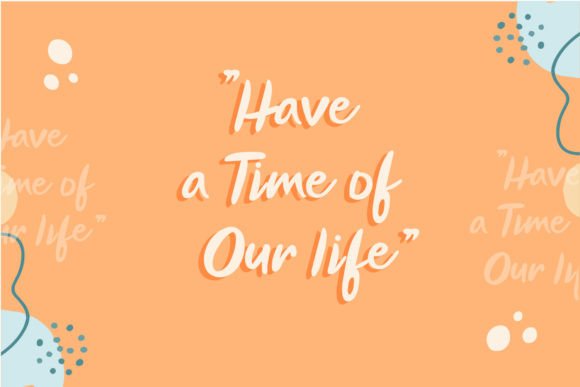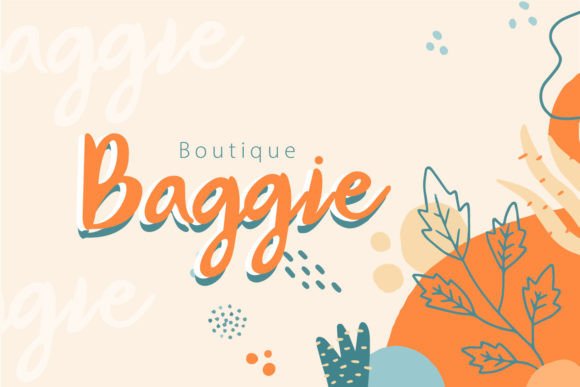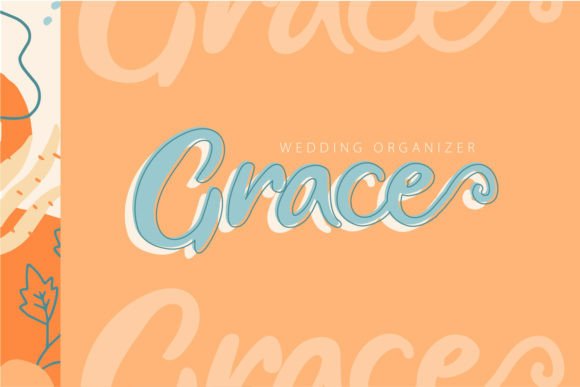
Introduction to Peach Salmon Font
Do you remember that moment when you stumble upon the perfect design element, and your creative project suddenly comes alive? For many designers, this moment is a result of finding the right font. If you’re on the hunt for a new design resource, you might want to consider the Peach Salmon Font. This fun and friendly display font is sure to add a touch of personality to your next project.
The Peach Salmon Font is more than just a pretty face – it’s a high-quality design asset that can elevate your creative work. With its incredibly distinct and timeless style, this font is perfect for designers looking to add a unique touch to their designs. Plus, with its transparent background, you can easily use it as a design element in any project, from social media graphics to print materials.
Key Features of Peach Salmon Font
- High-quality, elegant script font with a unique blend of peach and salmon hues, ideal for creative projects requiring a touch of sophistication.
- Transparent background, making it easy to layer over images or use as a design resource for various creative projects.
- Available in a range of sizes, from 12 to 72 points, to accommodate various design needs and applications.
- Designed to be highly legible at resolutions up to 300 DPI, ensuring crisp and clear text display in print and digital formats.
- Perfect for designers, artists, and creatives seeking a unique, high-quality font to elevate their design projects and add a touch of elegance.
Honest Review: Peach Salmon Font
I recently stumbled upon the Peach Salmon Font and I have to say, I was intrigued by its unique design. As a designer, I’m always on the lookout for high-quality design resources to enhance my creative projects.
What works well for me about this font is its versatility. It’s perfect for projects that require a touch of elegance and sophistication, but still want to maintain a playful vibe. The font is available for free download, which is a huge plus in my book. I appreciate the transparency of the creator in offering a high-quality font without any restrictions.
Here are some of the features that I love about the Peach Salmon Font:
- Unique and elegant design
- Perfect for creative projects that require a touch of sophistication
- High-quality design resource
One thing that I would like to see improved is the font’s compatibility with different backgrounds. Sometimes, the font can get lost against a transparent background, which can affect the overall design. ⚠️
Overall, I would give the Peach Salmon Font 4 out of 5 stars. It’s a great addition to any designer’s toolkit, and I would definitely recommend it for any creative project that requires a touch of elegance and sophistication. ✨
The Peach Salmon Font is ideal for use in creative projects that require a unique and eye-catching design. Some common use cases include:
- Brochures and flyers
- Posters and social media graphics
Is the Peach Salmon Font suitable for designs with a transparent background?
Yes, the Peach Salmon Font is designed to be versatile and works well with transparent backgrounds. The font’s high-quality design ensures that it remains legible and visually appealing even when layered over a transparent background, making it an ideal choice for creative projects that require a clean and modern aesthetic.